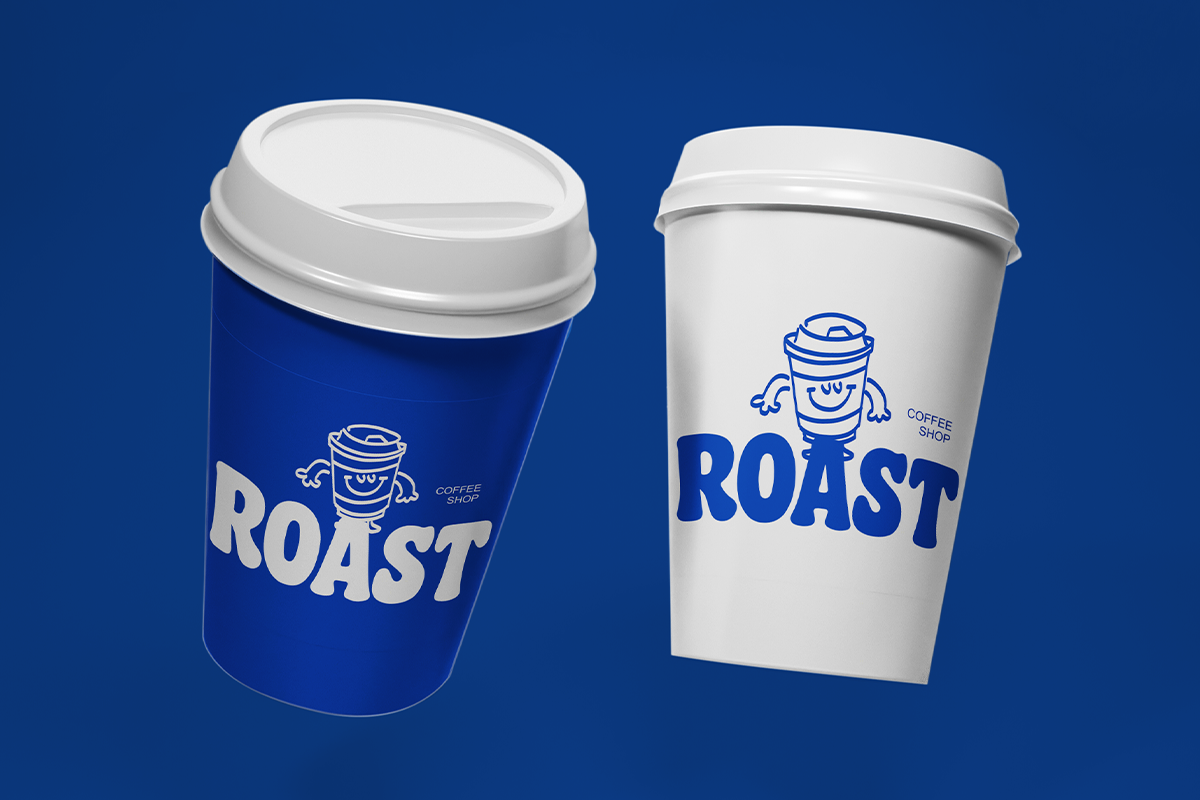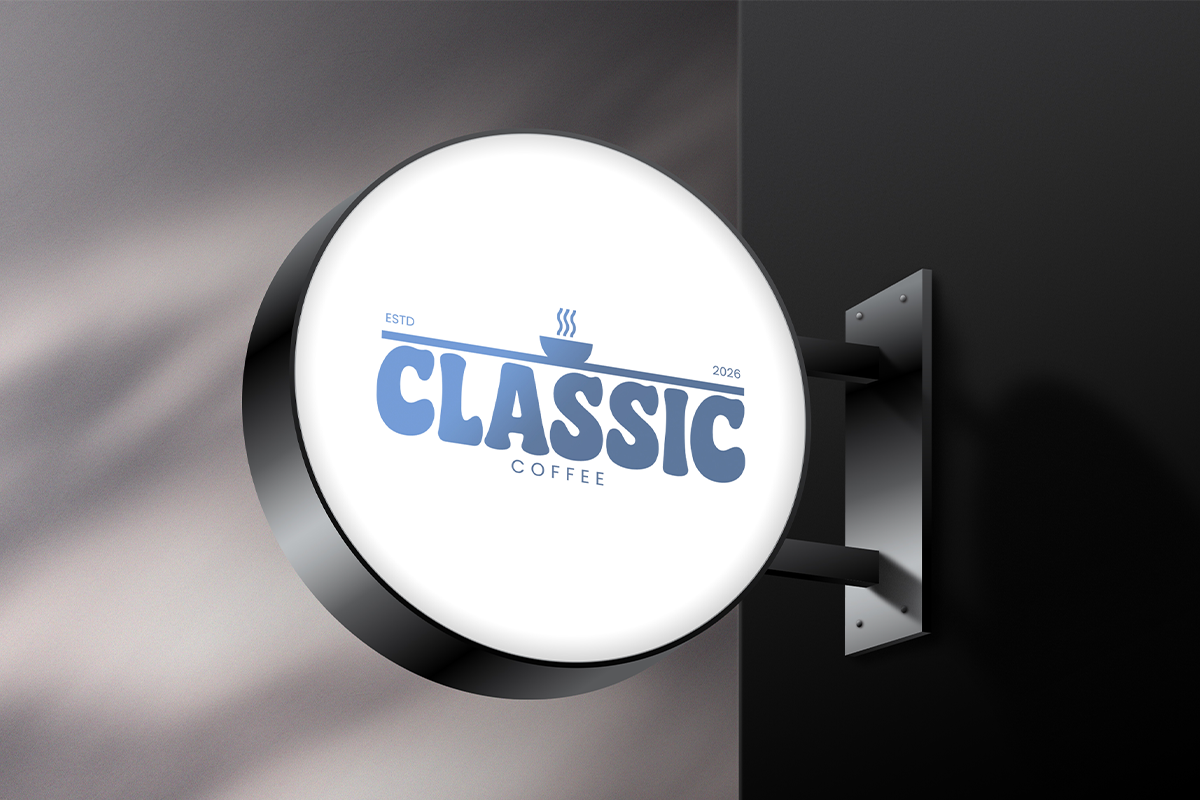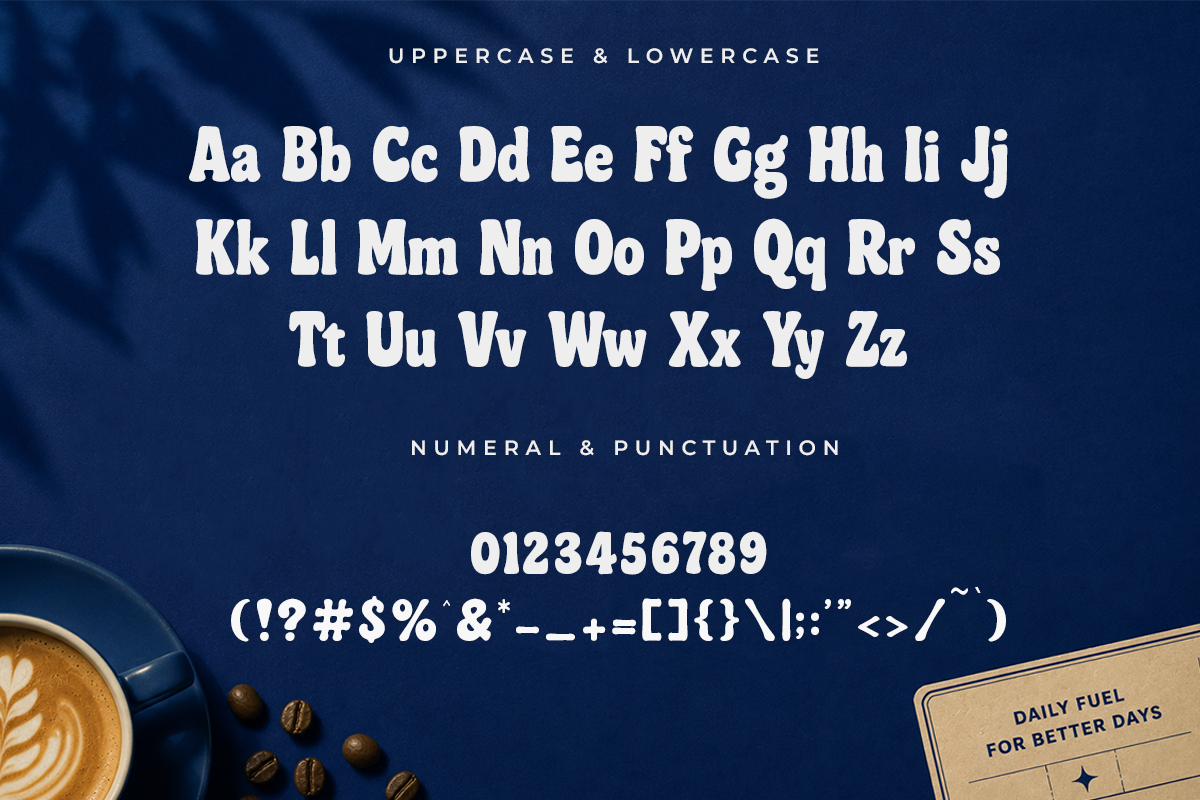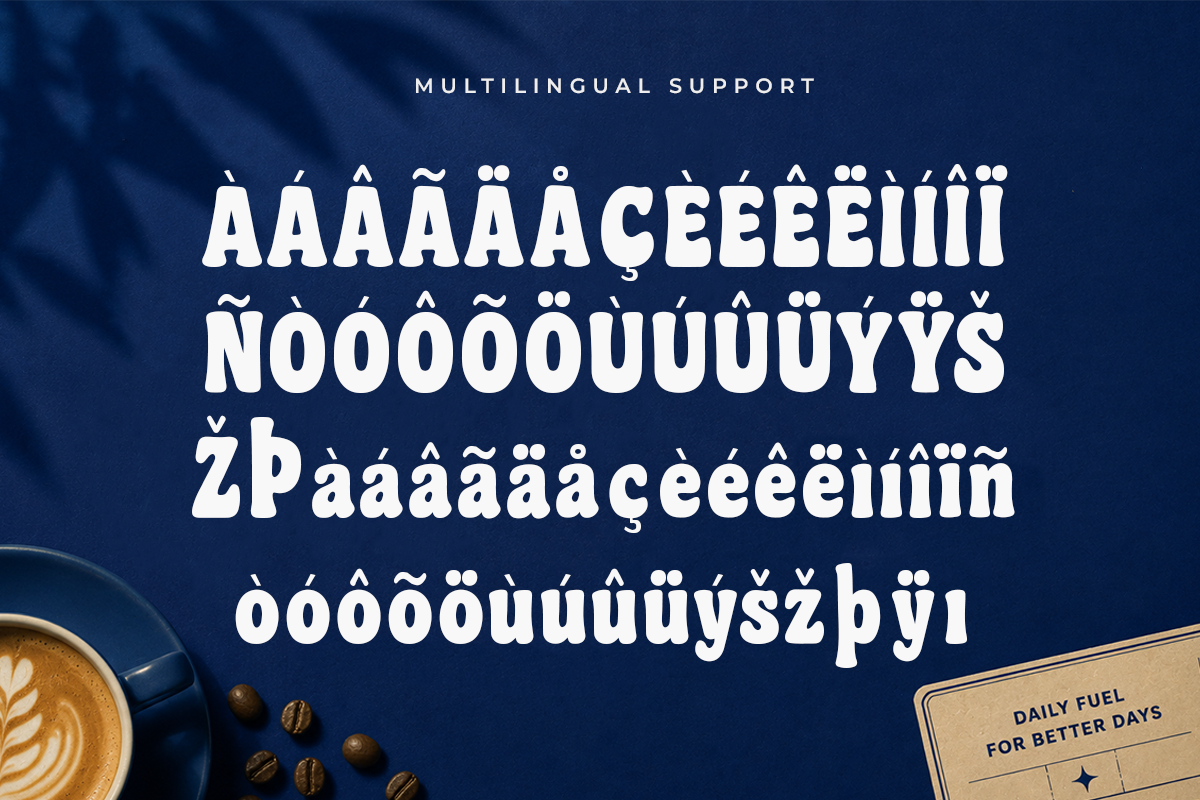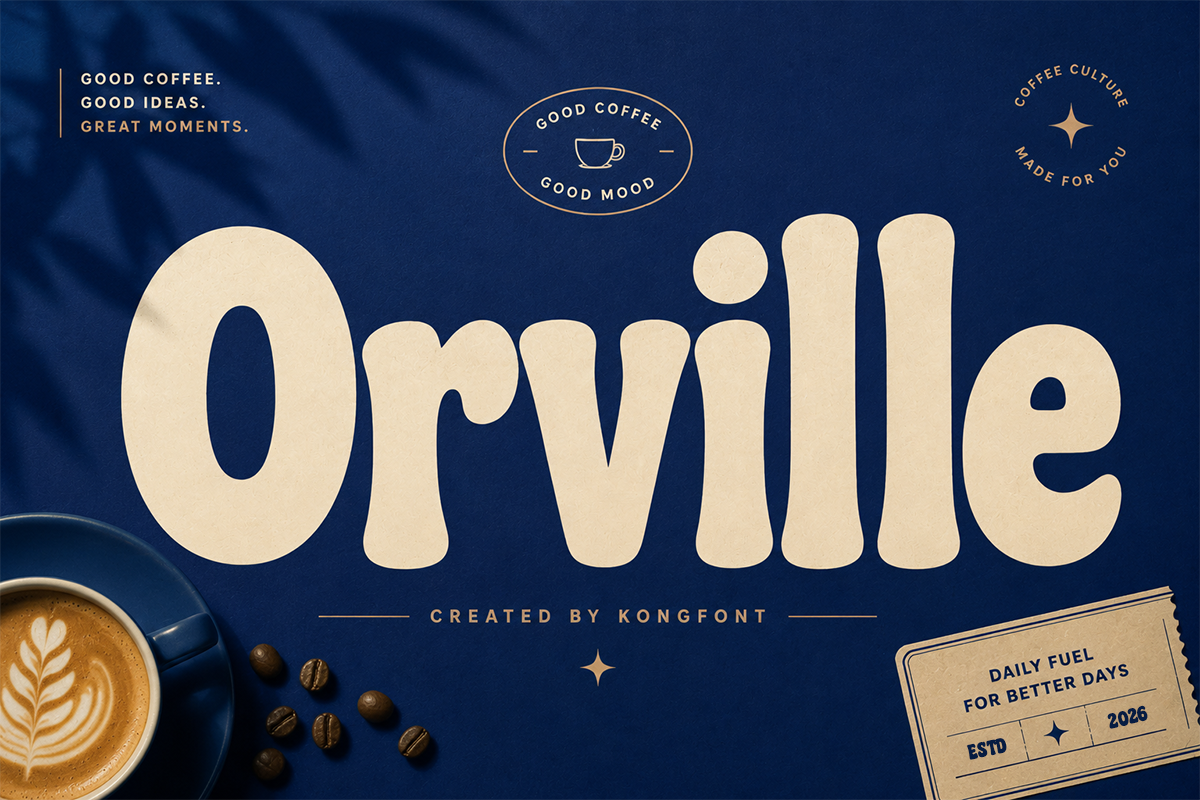
Orville A Modern Retro Display Bold Font is a bold retro-inspired display font that brings warmth, personality, and timeless charm to every design. Featuring soft curves, chunky letterforms, and a friendly vintage aesthetic, Orville A Modern Retro Display Bold Font captures the nostalgic spirit of classic signage, café branding, and mid-century design while maintaining a fresh contemporary appeal.
Its distinctive shapes create a strong visual impact without sacrificing readability, making it an excellent choice for logos, packaging, posters, menus, social media graphics, and branding projects that want to feel approachable, memorable, and full of character.
Whether you're designing for a coffee shop, bakery, restaurant, lifestyle brand, or creative business, Orville A Modern Retro Display Bold Font delivers a cozy and inviting atmosphere that instantly connects with audiences.